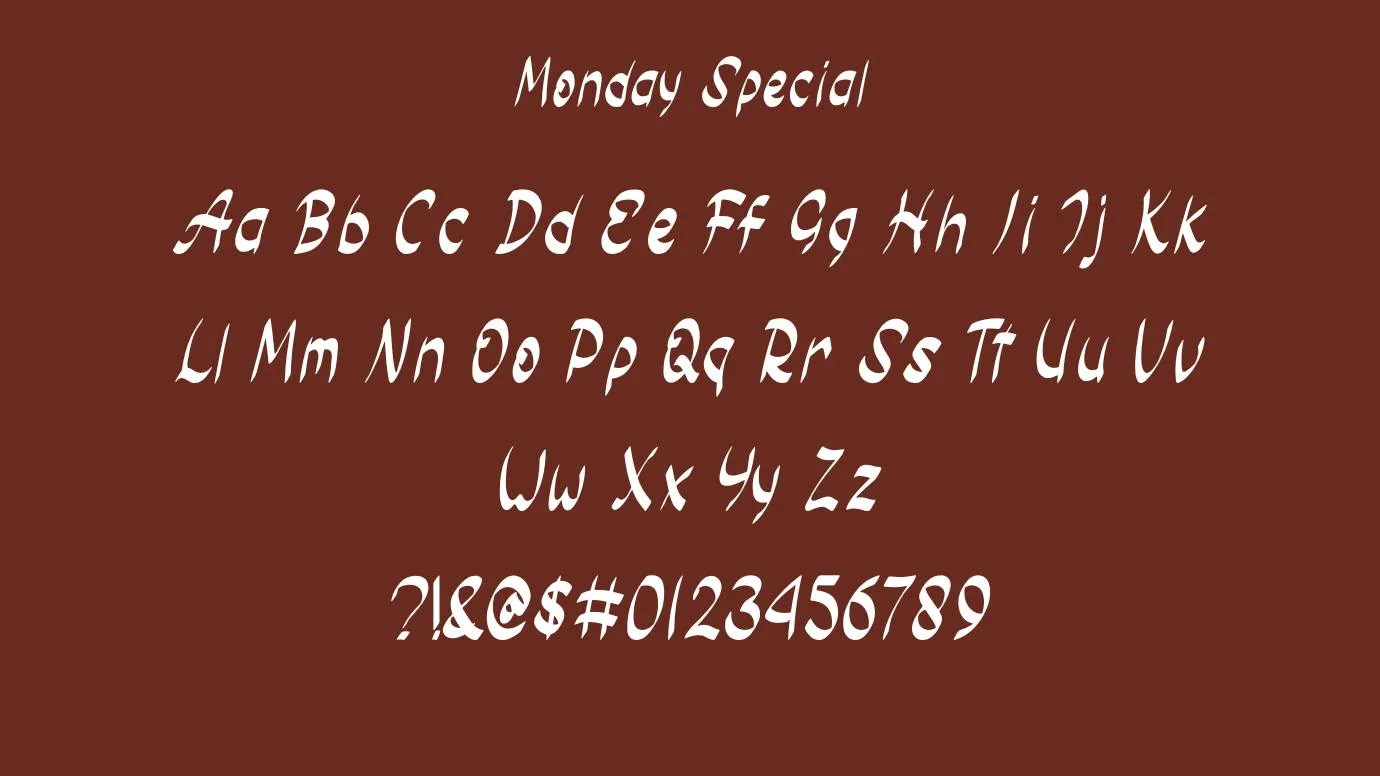
Monday Special Font is a stylish and modern typeface with a friendly and approachable feel. Its smooth curves and clean design make it suitable for both casual and professional projects.
The font works well for branding, social media graphics, and creative layouts. Monday Special Font adds a fresh and contemporary touch to any design.
Monday Special Font